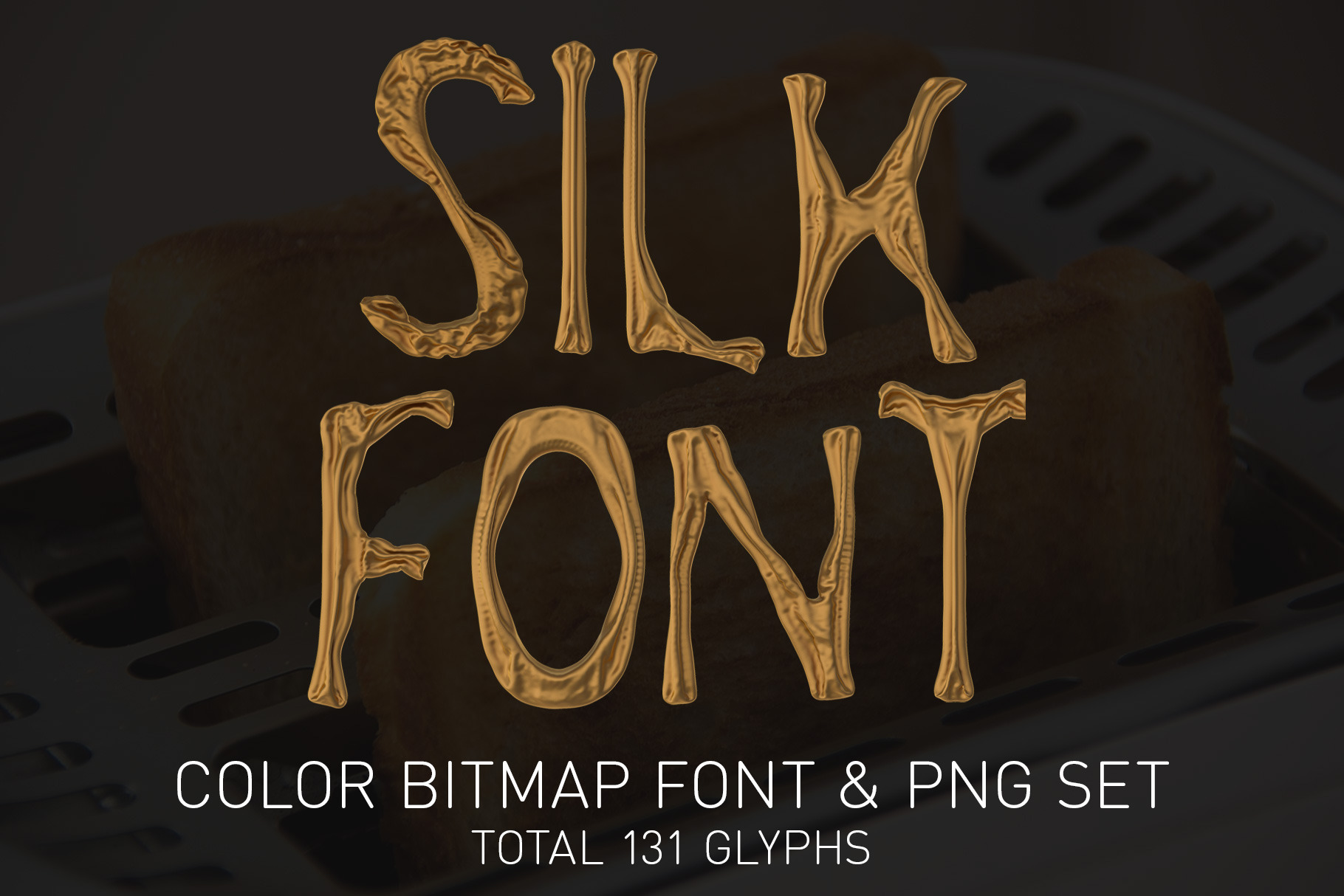
Silk Color Bitmap Font & PNGs
Introducing the stunning Silk Color Bitmap SVG Font and transparent PNGs, a high-quality design asset that will elevate your projects to the next level. This versatile font features 130 beautifully rendered glyphs, including uppercase and lowercase letters, as well as common punctuation marks and symbols, ensuring that all your typographical needs are met.
Each glyph has a height of up to 700 pixels, providing an incredibly detailed and realistic look. Additionally, every glyph has been meticulously crafted using 3D software, giving it a unique and eye-catching appearance that will set your projects apart.
Whether you're creating graphics for a website, designing a logo, or working on a print project, the Silk Color Bitmap SVG Font and transparent PNGs are the perfect choice for adding a touch of elegance and sophistication to your work. Don't settle for ordinary fonts when you can have something truly exceptional.